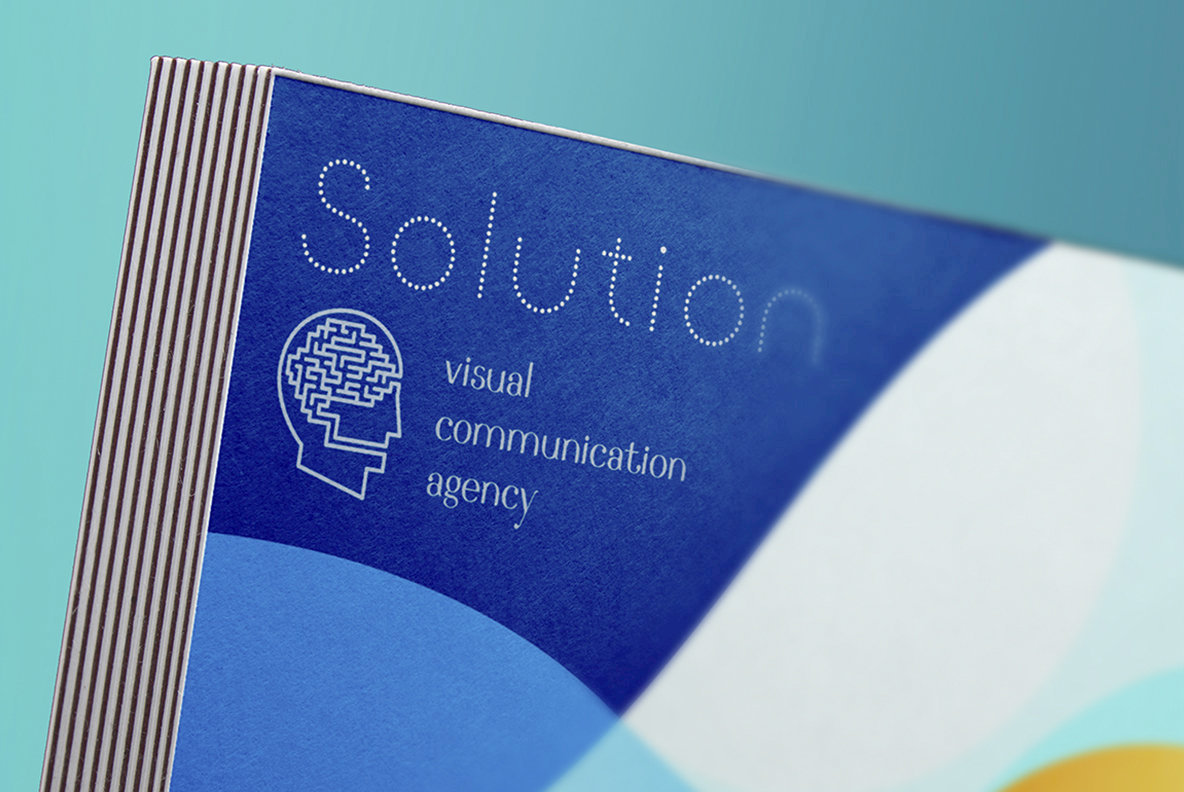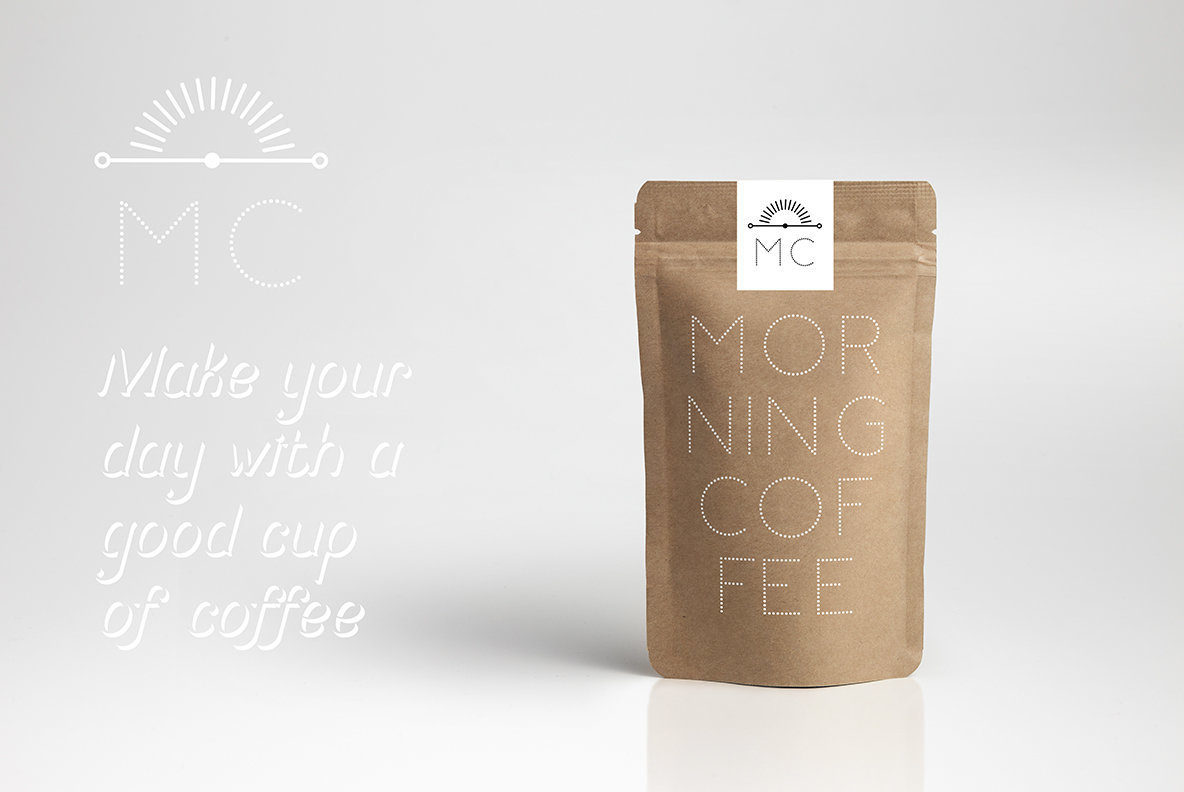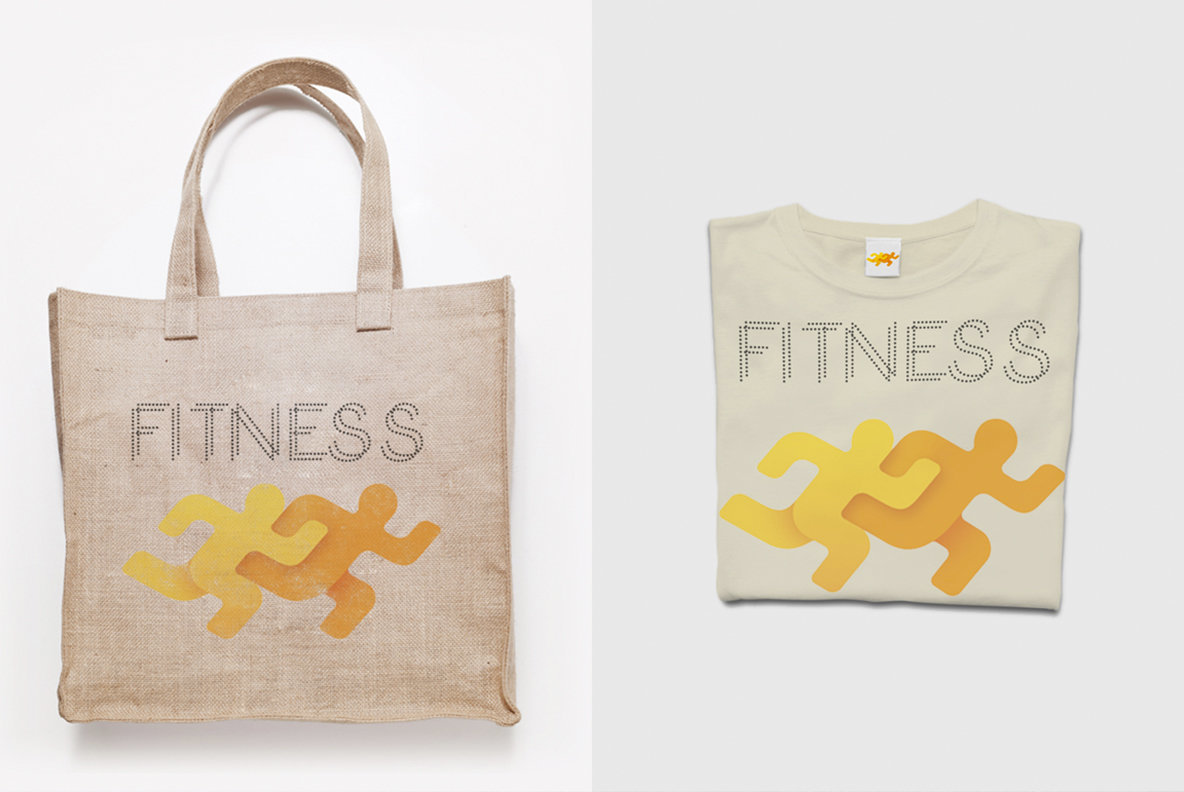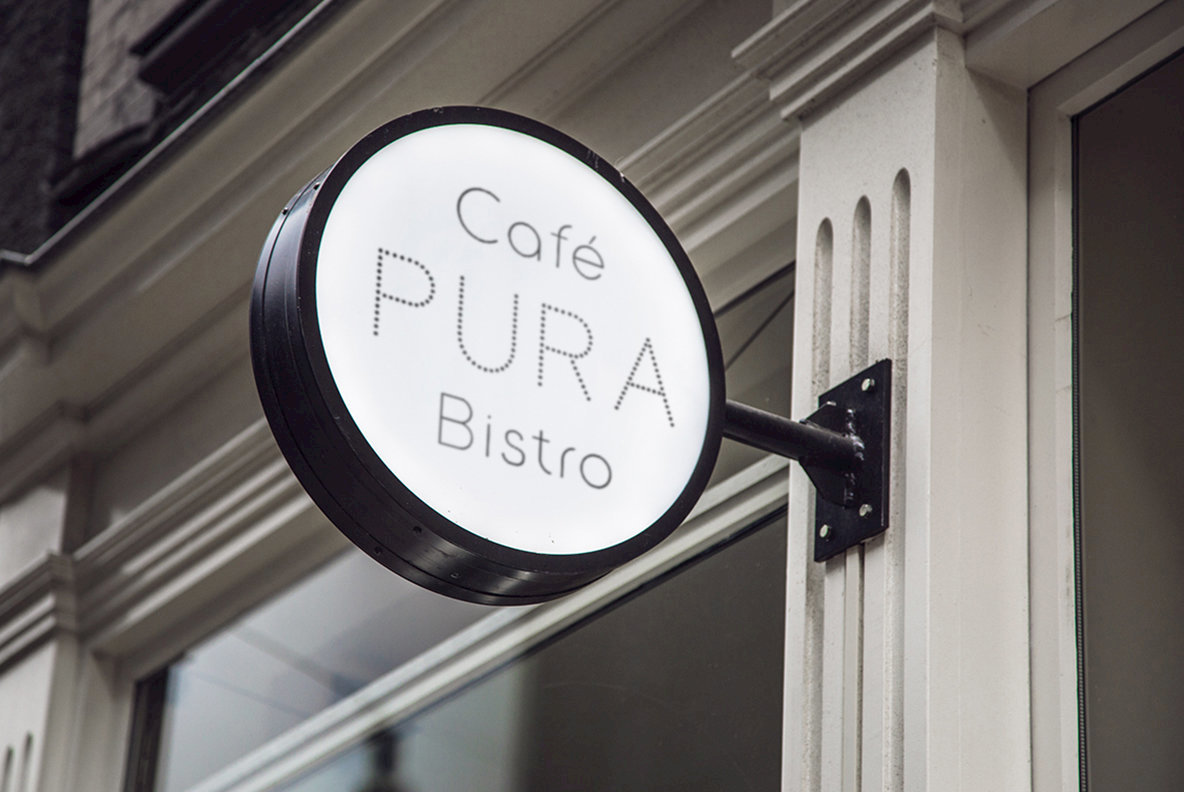
Laser Dots Font
Laser Dots
Laser Dots is a distinctive display font drawing its inspiration from the timeless sans serif tradition. Its bold appearance makes it an ideal choice for a variety of design contexts, from vibrant digital advertisements to sleek product labels, captivating cards, and intricate laser cuts. With its comprehensive character set, Laser Dots transcends language barriers, allowing for seamless integration of foreign characters, whether you are designing in your native language or incorporating an international flair.Laser Dots: A Bold Display with Versatile Application